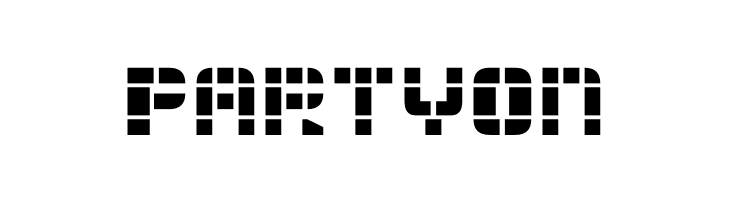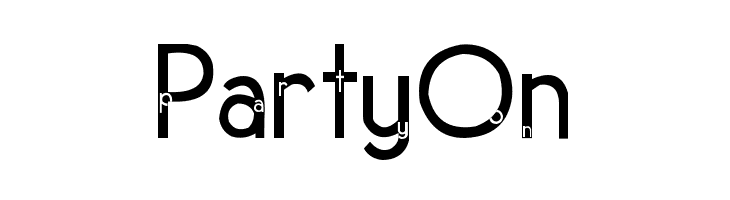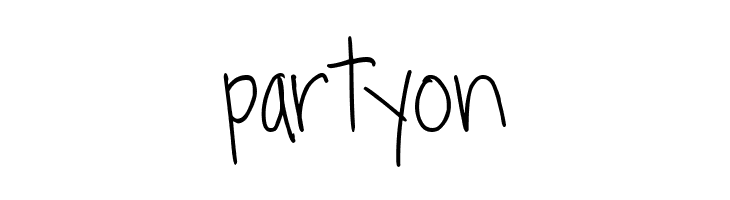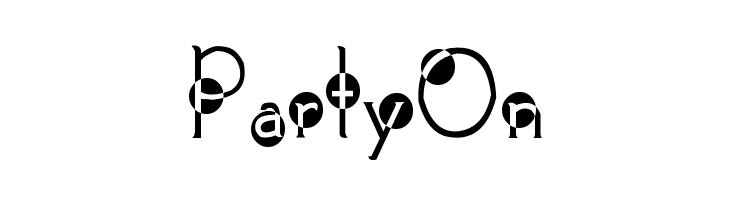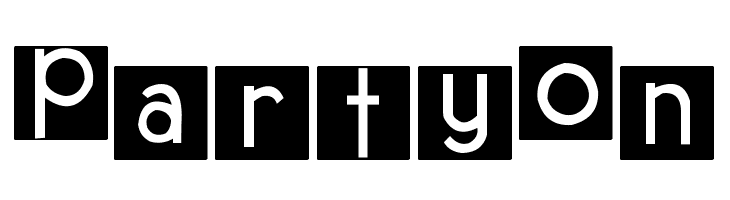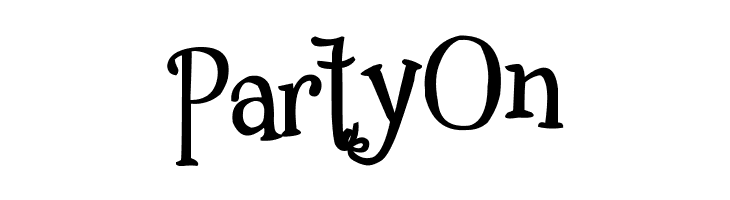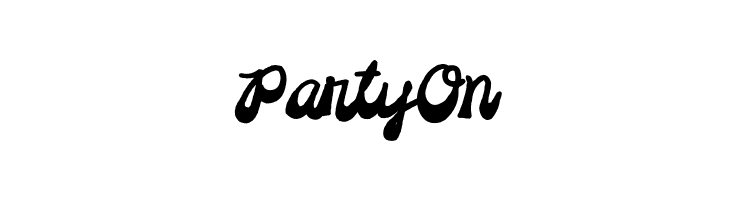
A bold, expressive script font with flowing, cursive letterforms.
A playful, bold, and geometric font with a modern style.
A playful, handwritten-style font with a casual and whimsical feel.
A playful, whimsical font with circular cutouts in each character.
A playful and whimsical font with unique curves and angles.
A playful, block-style font with rounded, hand-drawn characters.
A bold, geometric font with a digital, futuristic style.